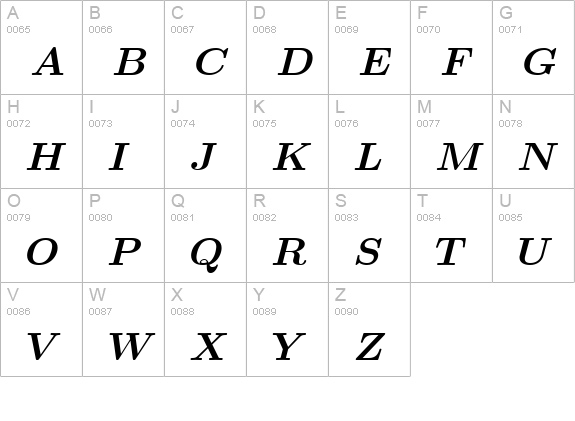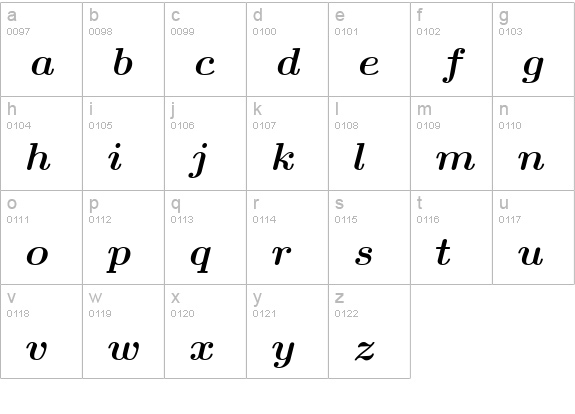
TeXplus MI Bold is a strong, high-contrast variant in the TeXplus typeface family \xE2\x80\x94 well suited to headlines, attention-grabbing titles, and strong calls-to-action.
TeXplus MI Bold is a stunning and versatile font that exudes boldness and elegance. With its sleek and modern design, this typeface is perfect for any project that requires a touch of sophistication and professionalism. Whether you are designing a website, creating a logo, or working on a branding project, TeXplus MI Bold is sure to make a lasting impression. This font is not only aesthetically pleasing but also highly functional. Its clean lines and clear letterforms ensure excellent readability, making it suitable for both headlines and body text. The bold weight adds a sense of authority and presence to any design, making it particularly well-suited for titles and headings. But what makes TeXplus MI Bold truly exceptional is that it is freely available to download at FontsMarket.com. Yes, you read that right – this premium font can be yours without spending a dime. FontsMarket.com is a reputable online platform that offers a wide range of high-quality fonts, and TeXplus MI Bold is one of their standout offerings. By downloading TeXplus MI Bold from FontsMarket.com, you can elevate your design projects without breaking the bank. Whether you are a professional designer, a student, or a hobbyist, this font is a valuable addition to your font collection. Its versatility, elegance, and the fact that it is free make it a must-have for anyone looking to create impactful and visually stunning designs. So why wait? Head over to FontsMarket.com and download TeXplus MI Bold today. With this font in your arsenal, you'll have the power to take your designs to the next level. Don't miss out on this incredible opportunity to enhance your creative projects with a free and remarkable font like TeXplus MI Bold.